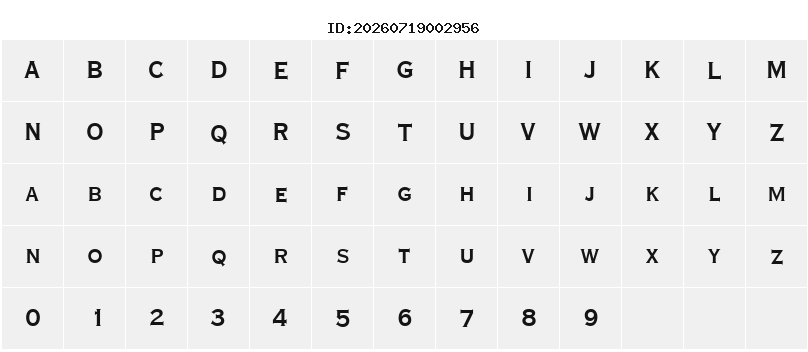
• Font Name: Copperplate Extra Condensed SSi
• Font Style: Bold Extra Condensed
• Full Font Name: Copperplate Extra Condensed SSi Bold Extra Condensed
About Copperplate Extra Condensed SSi.ttf
Copperplate Extra Condensed SSi.ttf is a modern, elegant sans-serif font designed for ultimate readability and visual harmony. Perfect for branding, headlines, web design, and print materials.